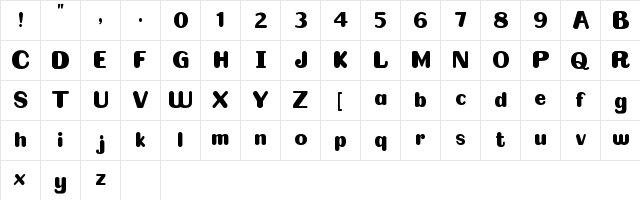
BOLDER Regular
Design Context for BOLDER Typeface
BOLDER is a composed and adaptable typeface that performs quietly and consistently across a wide range of design contexts. Its bold stroke weight gives it real presence on the page.
Pro Tip: Pair BOLDER with a font of contrasting weight or personality to build a more expressive typographic hierarchy.